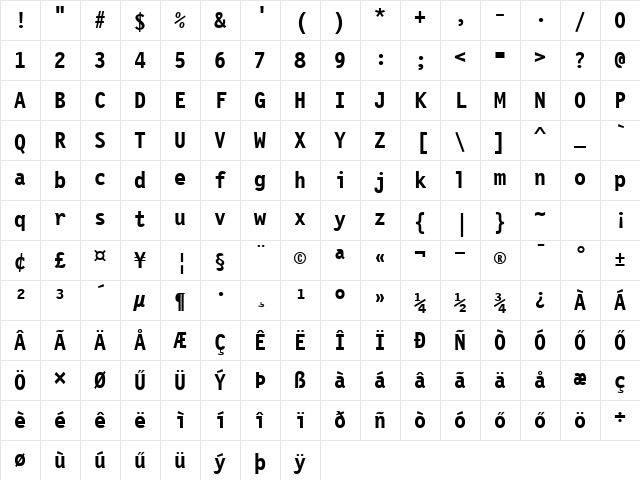
H_Letter Gothic 12 BT Bold
Design Context for H_Letter Gothic 12 BT
H_Letter Gothic 12 BT takes a clean, functional approach - its unadorned letterforms prioritise legibility and work reliably across screen and print environments. Its bold stroke weight gives it real presence on the page.
Font Pairing: Use H_Letter Gothic 12 BT for headlines alongside a lighter-weight sans or serif for body copy to establish clear visual hierarchy.
Pro Tip: Use H_Letter Gothic 12 BT for UI labels, navigation, and short-form body copy where clean legibility is the priority.